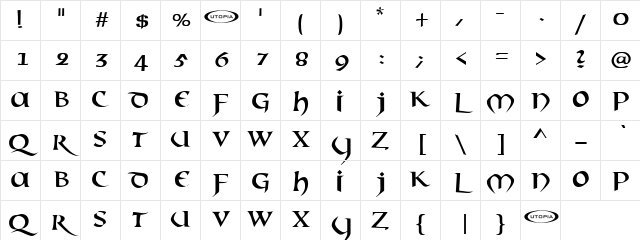
Mael Regular
Mael Family
Design Context for Mael
Mael is a composed and adaptable typeface that performs quietly and consistently across a wide range of design contexts.